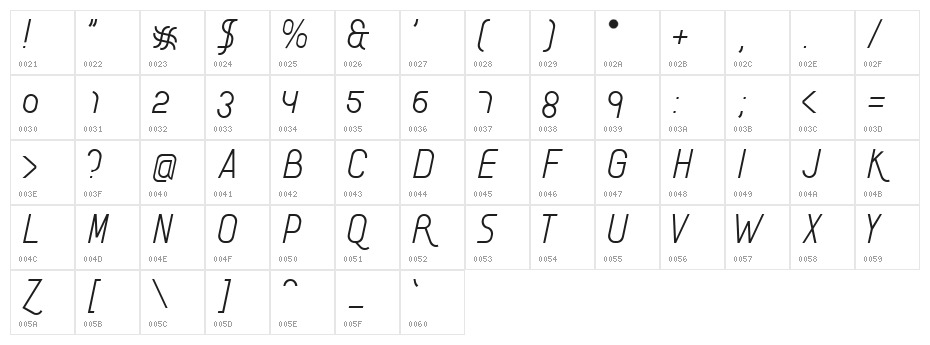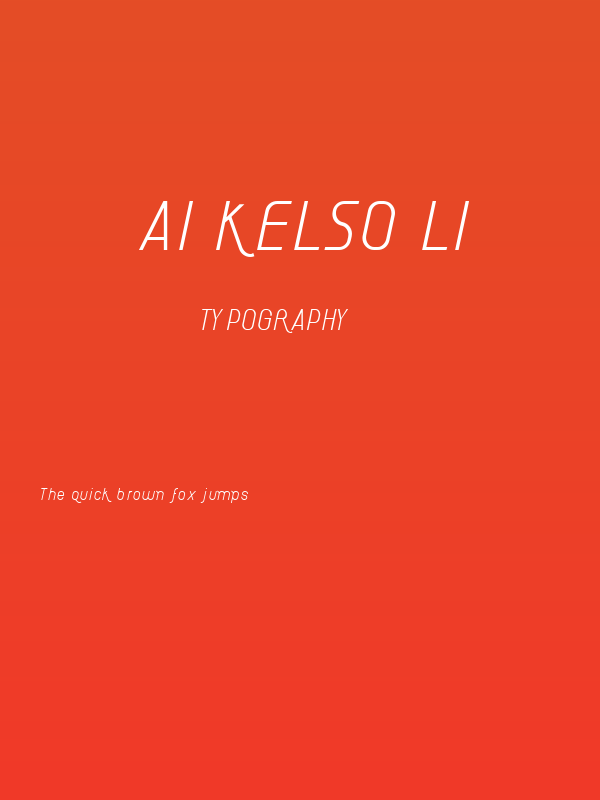
AI kelso LI Font
AI kelso LI Description
This font features a sleek, modern design with a slight slant, giving it an italicized appearance. The characters are sans-serif with clean, smooth lines and a consistent stroke width, contributing to a minimalist and contemporary aesthetic. The uppercase letters are tall and slightly narrow, while the lowercase letters maintain a uniform height, enhancing readability. The numerals are distinct and align well with the overall style, making them suitable for various applications. Special characters are well-integrated, maintaining the font's cohesive look. The font's design is versatile, making it ideal for both digital and print media.